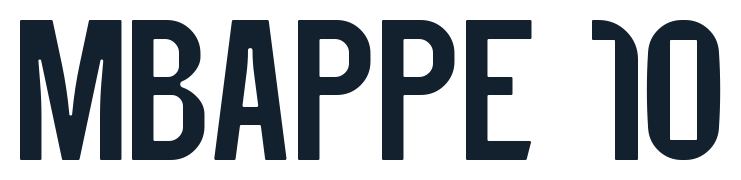
Real Madrid 2025/26 UCL Font – Home & Away Kit Style
Bring the look of the Bernabéu to your designs with the Real Madrid Font 2025/26 UCL pack. This digital set recreates the sleek, modern typography used on Real Madrid’s 2025/26 UEFA Champions League home and away kits, combining clean geometric shapes with subtle detailing for a professional, broadcast‑ready appearance. The font is ideal for fans, designers and print shops who want to create authentic‑looking namesets, replica shirts and match graphics for one of the world’s biggest clubs.
The kit font features tall, narrow numbers with sharp edges and balanced spacing, designed to stay legible from distance while keeping a premium, minimalist feel. Letters and numbers share the same visual language, so any combination – from classic legends to your own name – looks like it belongs on the pitch at the Bernabéu on a European night. Home and away versions are both included, allowing you to match white home shirts and coloured away kits with the correct style.
Complete uppercase A-Z alphabet and numbers 0-9
Extended Latin characters and key accents for player names (Á, É, Í, Ó, Ú, Ü, Ñ, Ç, etc.)
Design highlights
UCL‑inspired: Built to mirror the typography style used on Real Madrid shirts in European matches for the 2025/26 season
Clean and modern: Thin inline details and balanced line weight give the numbers a contemporary look while keeping them highly readable on both light and dark fabrics
Use this font to design your own Real Madrid jersey with your name and favourite number, or recreate the names of current stars for fan merchandise. Combine the font with sponsor logos and competition badges to build complete kit mockups, or use it on score graphics, line‑up posts and thumbnails for football‑related content. The vector version makes it easy to adapt the font to large‑format prints such as flags and stadium banners.